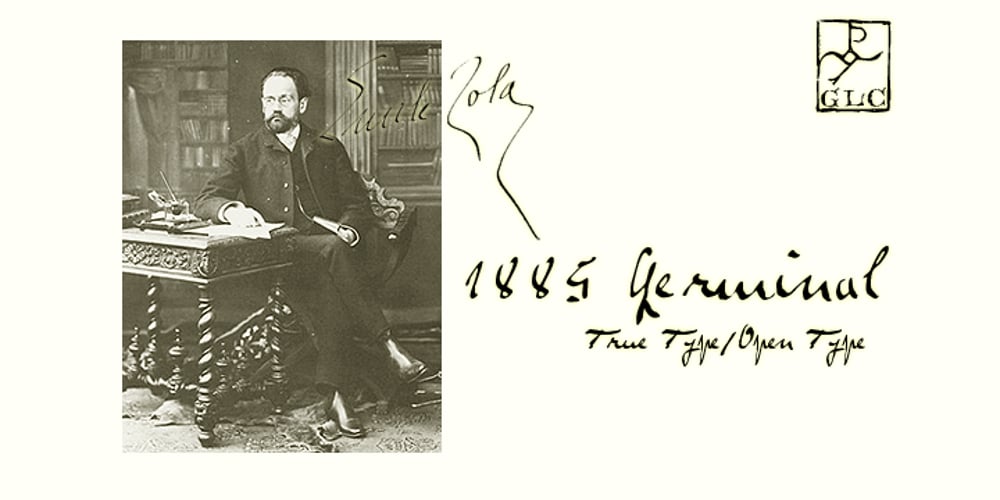
1885 Germinal Font Family was designed by published by GLC. 1885 Germinal contains 1 styles and family package options. This script font was inspired by a lot of manuscripts, notes and drafts, written by the famous french novelist Émile Zola (1840-1902). Specially, letters and notes from the period he was writting “Germinal” one of his very famous novel (published in 1884-1885) depicting the french minor’s life in the past middle of eighteens. It is an elegant pen written type, sometimes connected, sometimes disrupted, but always regular and legible, with many variants, ligatures and contextual alternate glyphs specialy numerous in the OTF version. It is used as variously as web-site titles, posters and fliers design or greeting cards, all various sorts of presentations, menus, certificates, letters. This font, in spite of its small size, supports very strong enlargements as well as small sizes ( the original size was about 22 to 30 pts ). When printed, it remain perfectly legible and elegant from 12/14 pts even if using an ordinary inkjet printer.